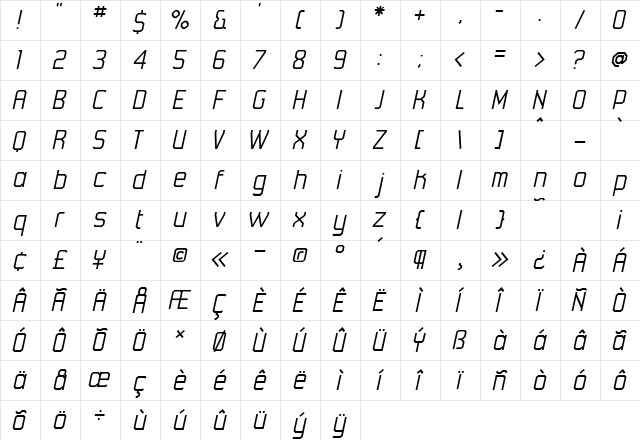
45DegreesLight Italic
Design Context for 45DegreesLight Typeface
45DegreesLight is a composed and adaptable typeface that performs quietly and consistently across a wide range of design contexts. Its italic angle brings a sense of urgency and motion to the letterforms. Its slender proportions lend an understated elegance to any composition.
Pro Tip: Use 45DegreesLight for emphasis, pull quotes, and subheadings where its slanted energy can add rhythm to the layout.